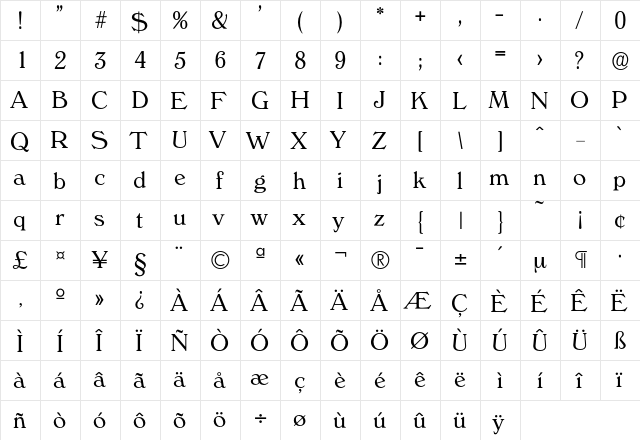
Verona-Light Regular
Design Context for Verona-Light Typeface
Verona-Light is a composed and adaptable typeface that performs quietly and consistently across a wide range of design contexts. Its slender proportions lend an understated elegance to any composition.